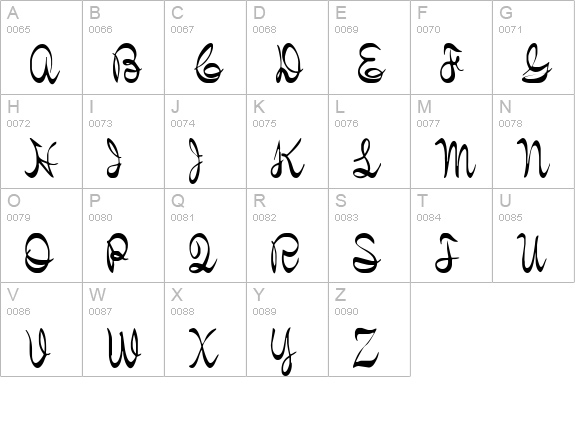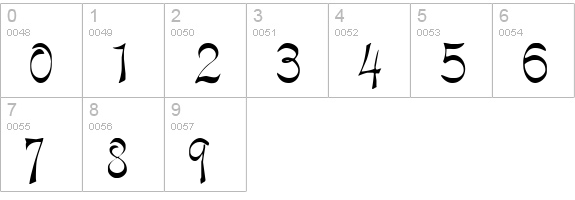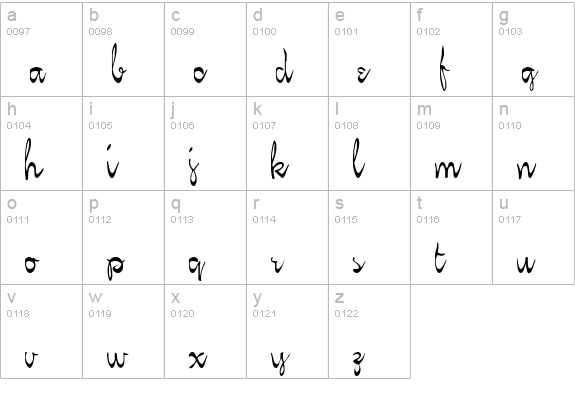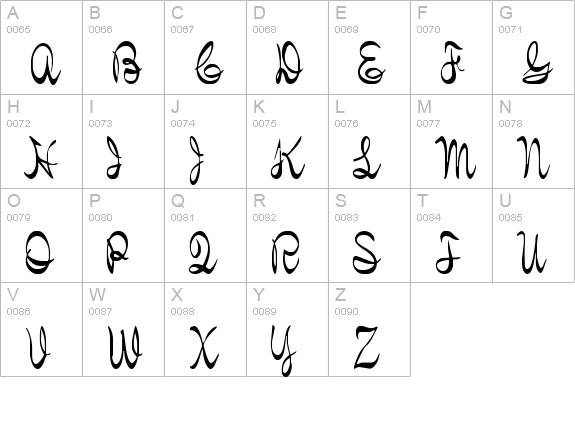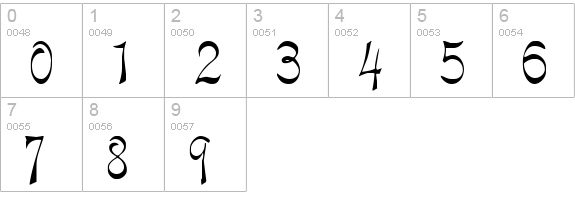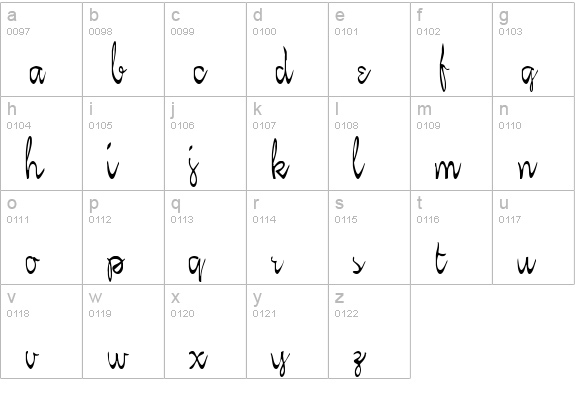
KellyBrown Font Details
Introducing KellyBrown, a captivating font that effortlessly combines elegance with a touch of playfulness. This font is the perfect choice for those seeking a modern yet timeless look in their designs. With its slender, flowing lines and exquisite curves, KellyBrown adds a sense of sophistication to any project. What sets KellyBrown apart is not just its stunning aesthetics, but also its versatility. Whether you're designing a logo, creating a stylish invitation, or crafting eye-catching headlines, this font will be your go-to choice. Its clean and legible letterforms ensure readability across various mediums, making it suitable for both print and digital applications. And the best part? KellyBrown is absolutely free! You can easily download this font at FontsMarket.com, a trusted source for high-quality fonts. By offering KellyBrown for free, we aim to provide designers and creatives with a valuable tool that enhances their work without breaking the bank. So why wait? Give your designs a touch of class and flair with KellyBrown – the font that effortlessly combines elegance and playfulness. Download it for free today at FontsMarket.com and elevate your projects to new heights of creativity.